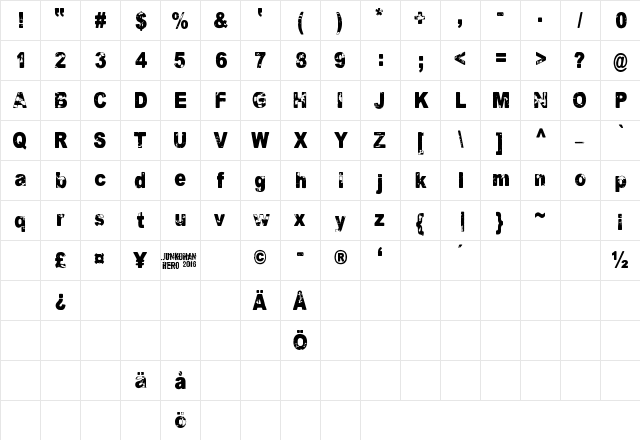
The universe in a nutshell Regular Free Font
The universe in a nutshell Regular
Design Context for The universe in a nutshell
The universe in a nutshell is a composed and adaptable typeface that performs quietly and consistently across a wide range of design contexts.